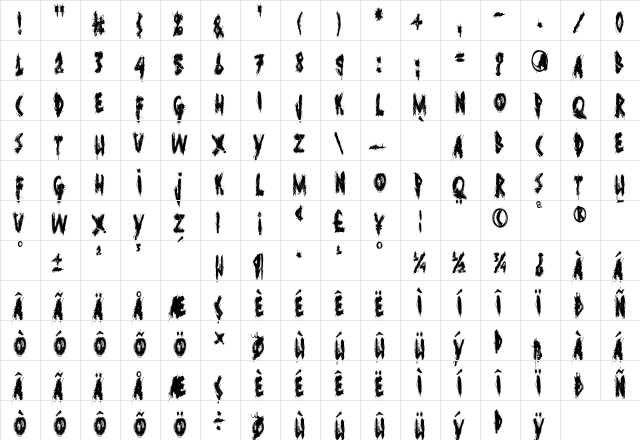
Ghost Reverie Condensed Regular
Design Context for Ghost Reverie Typeface
Ghost Reverie is a composed and adaptable typeface that performs quietly and consistently across a wide range of design contexts. Its narrow stance lets it pack a punch even in space-constrained designs.
Pro Tip: Pair Ghost Reverie with a font of contrasting weight or personality to build a more expressive typographic hierarchy.